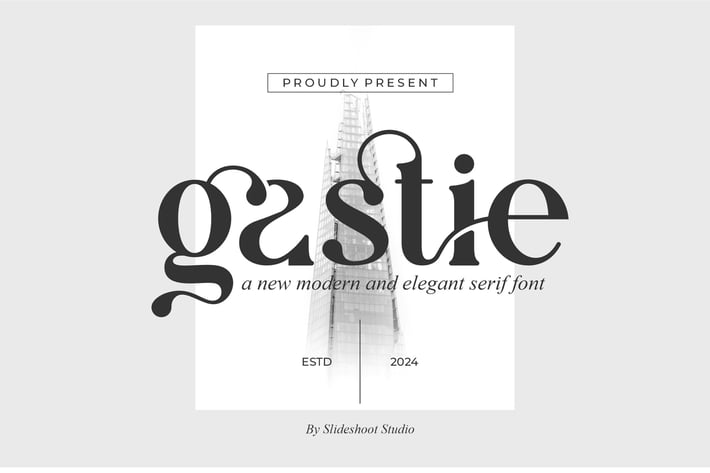
Gastie || Modern Serif Font
Gastie Serif is a modern and classy font type for all branding and logo designs. This modern and classy Serif font has a beautiful character. This font is suitable for invitation card designs, cool logos, movie titles, movie names, business cards, book titles, brand names, and various other designs. Gastie Serif is a smooth serif font that exudes sophistication and the moment. Its stylish alterations and ligatures make this font a perfect partner for any project.
- Uppercase and lowercase
- Numbering and Punctuation